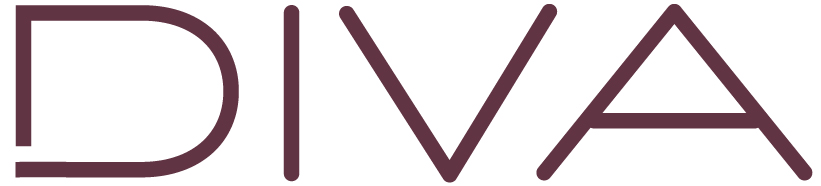
The “D” could be custom in this example.
not only is the D made with straight edges and the other letters have round ones, but also the V and A have different angles.
So my guess is, it is completely custom made.
Here is a font, which is similar to this (the picture is the link):
Thanks!! The typeface you found is pretty close. It’s a place to start and rebuild it.